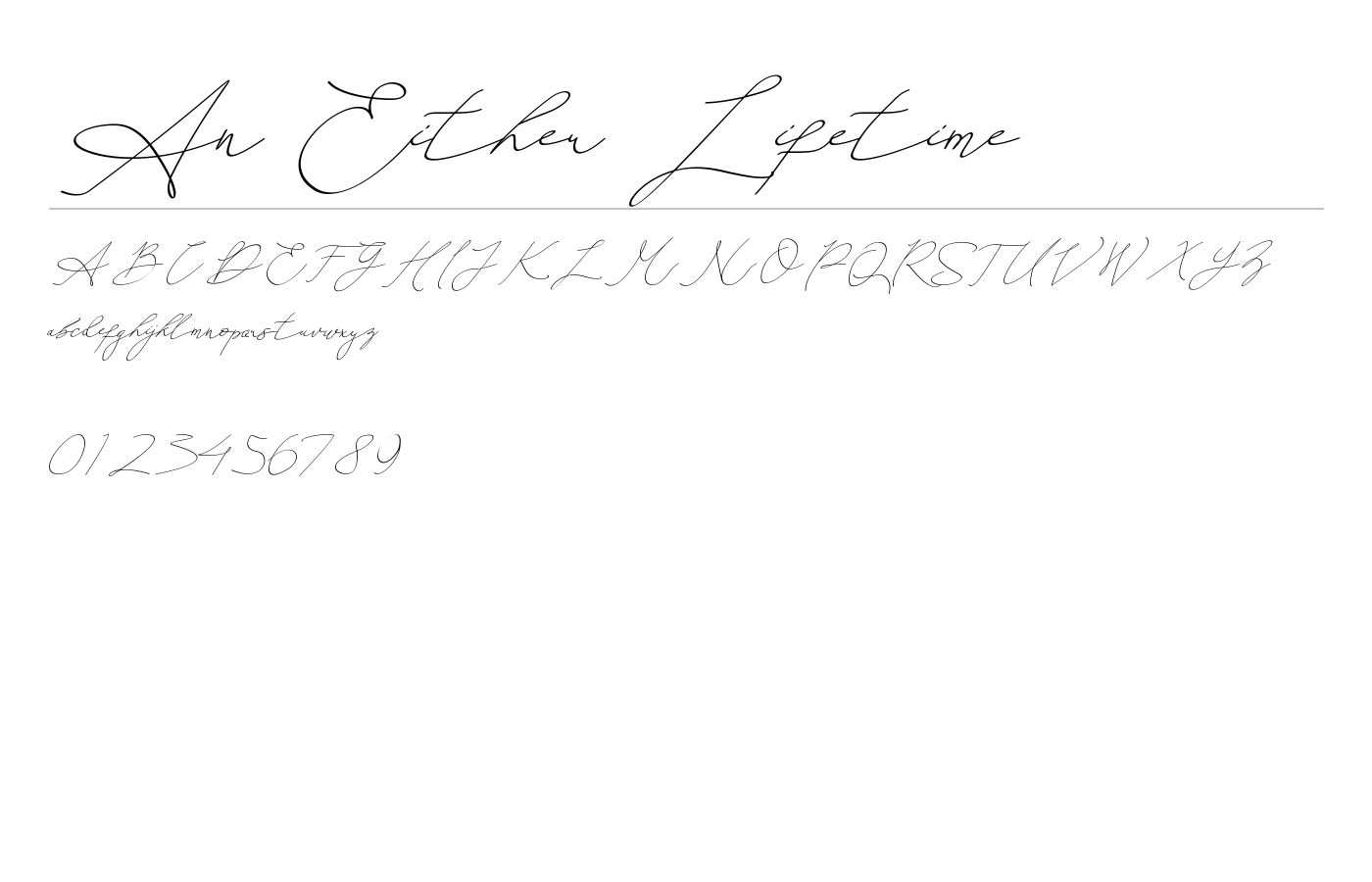
An Either Lifetime is a delicate and elegant script font featuring thin, flowing strokes that mimic natural handwriting with a refined, airy feel. Its light weight and graceful curves make it perfect for sophisticated branding, wedding invitations, and luxury packaging where a personal yet stylish touch is desired. This font shines in designs that aim for a romantic, timeless aesthetic with an emphasis on elegance and subtlety.
An Either Lifetime Font
About An Either Lifetime Font
| Font family | An Either Lifetime Font |
| Designer | Creaditive 2019 |